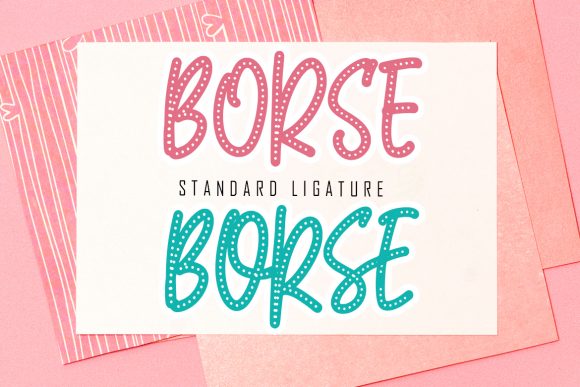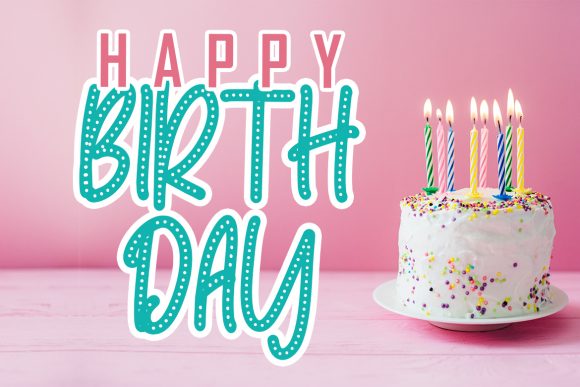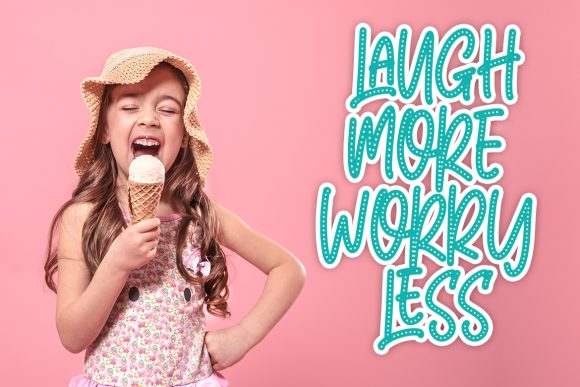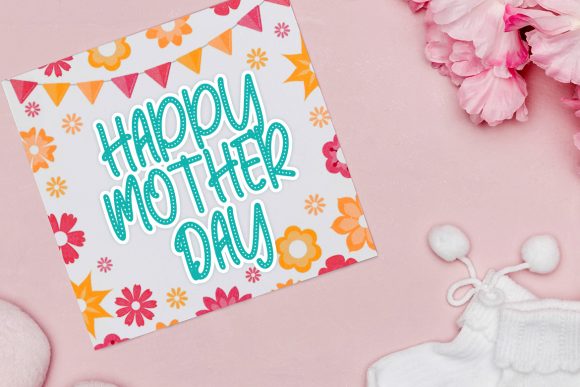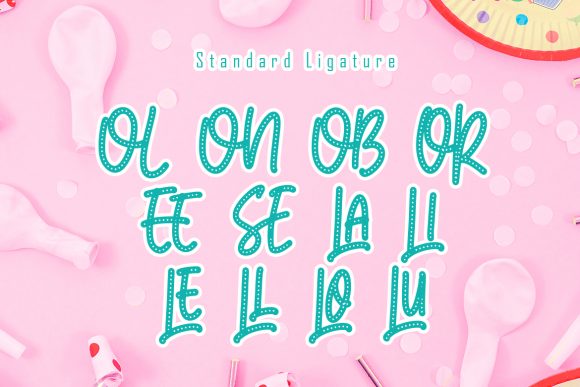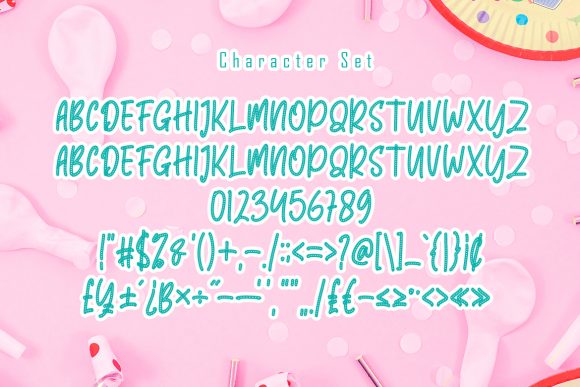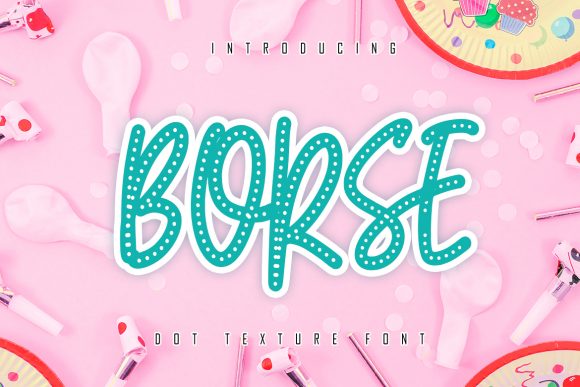
The Ultimate Guide to Borse Font: Elevate Your Designs with a Fun and Friendly Display Font
I’ll never forget the time I was working on a project for a client who wanted a bold, eye-catching font to make their brand stand out. I scoured the internet, trying out font after font, but nothing seemed quite right. That was until I stumbled upon Borse Font. This fun and friendly display font instantly caught my attention, and I knew I had found the perfect fit. In this article, I’ll share my experience with Borse Font, its features, and how to make the most of it in your designs.
An Honest Review of Borse Font
Borse Font has quickly become one of my go-to fonts for adding a touch of personality to my designs. Here’s what I love about it:
- ✨ Unique and quirky design: Borse Font has a distinct, hand-crafted feel that sets it apart from more traditional fonts.
- ✅ Easily readable: Despite its bold and playful design, Borse Font remains highly legible, even at smaller sizes.
- 💥 Instant visual impact: This font demands attention and can instantly elevate your design from ordinary to extraordinary.
Of course, no font is perfect, and Borse Font has a few small quirks:
- 🤔 Limited use in body text: While Borse Font is amazing for headlines and titles, it’s not the best choice for longer blocks of text.
- ⚠️ May not work well with all design styles: Borse Font’s playful design might clash with more formal or minimalist design aesthetics.
- Experiment with OpenType features, such as Stylistic Alternates, to add more variety to your text.
- Access OpenType features, such as Glyphs and Stylistic Sets, to customize your text.
The Story Behind Borse Font
Borse Font was designed with the goal of creating a fun and friendly display font that could add personality to any design. Inspired by the world of street art and graffiti, Borse Font’s designer aimed to create a font that was both bold and approachable. The result is a font that’s perfect for designers, crafters, and creative hobbyists looking to add a touch of whimsy to their work.
| Author | Skiiller Studio |
Q: What type of projects is Borse Font best suited for?
A: Borse Font is perfect for projects that need a bold, eye-catching font, such as posters, flyers, and social media graphics.
Q: Is Borse Font easy to read?
A: Yes, Borse Font is designed to be highly legible, even at smaller sizes, making it perfect for titles and headings.
Q: Can I use Borse Font with other fonts?
A: Absolutely! Borse Font pairs well with a variety of fonts, so feel free to experiment and find the perfect combination for your design.